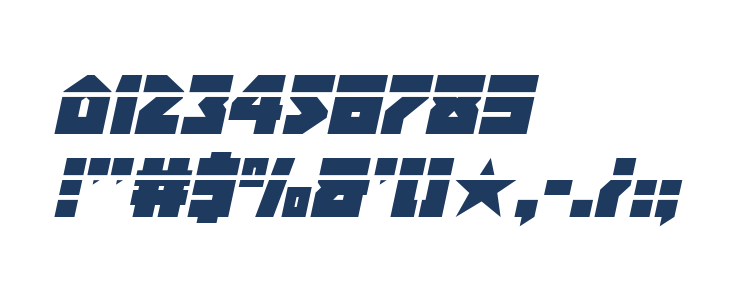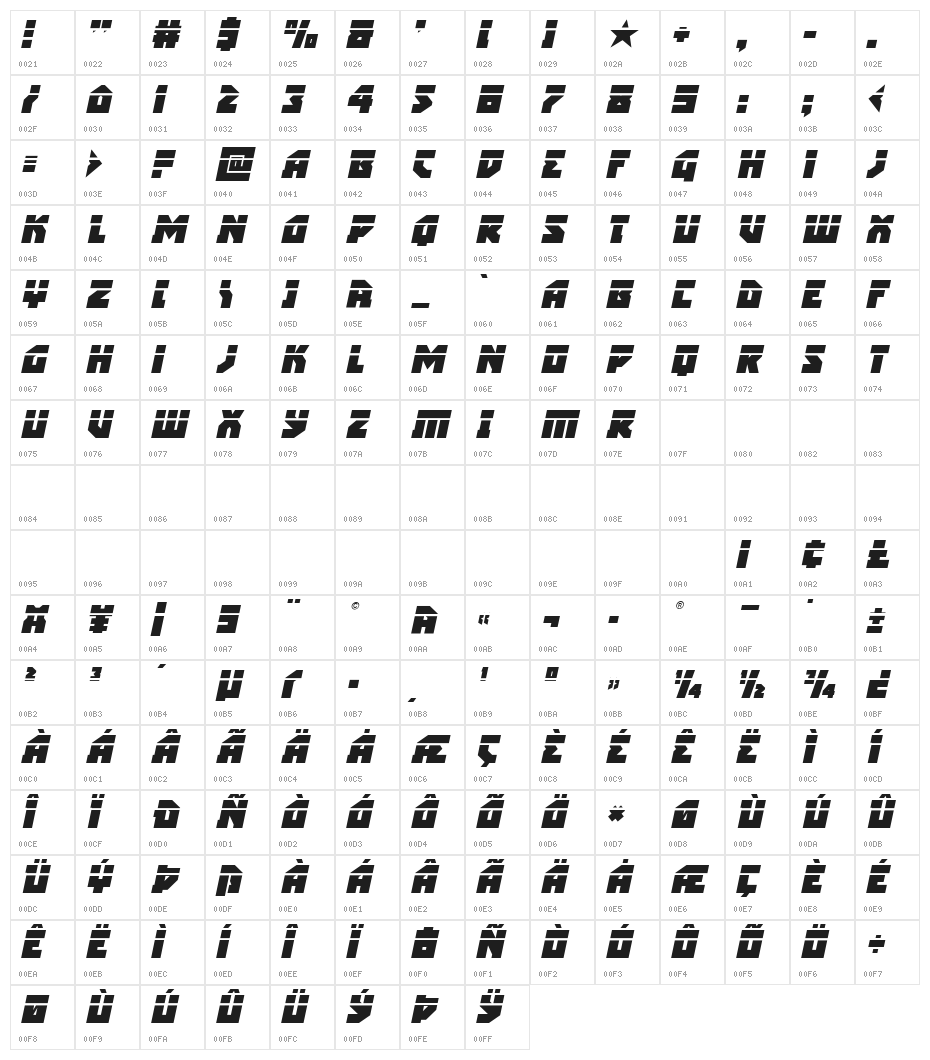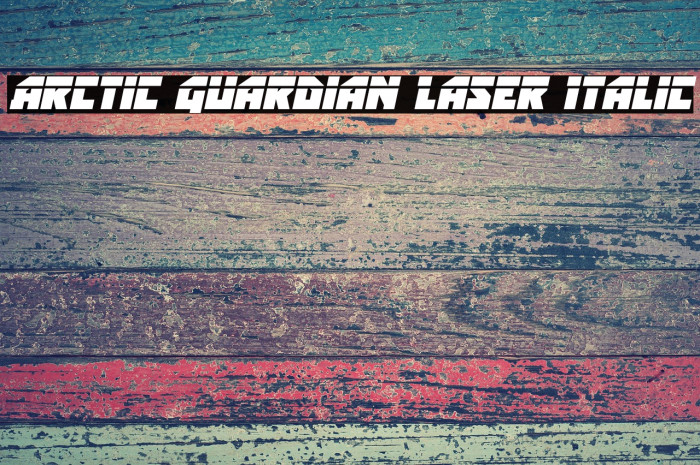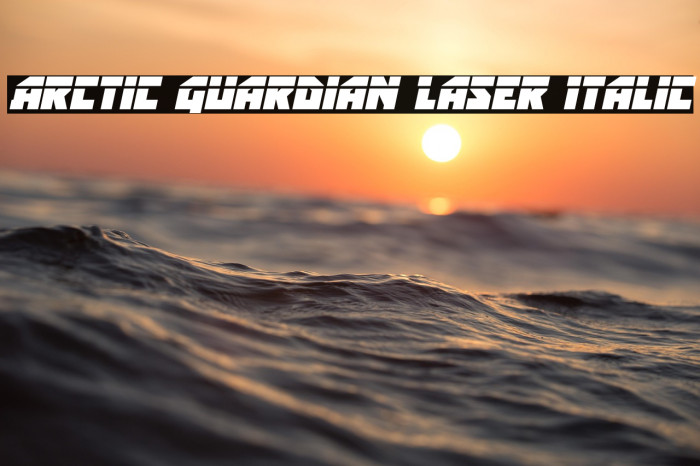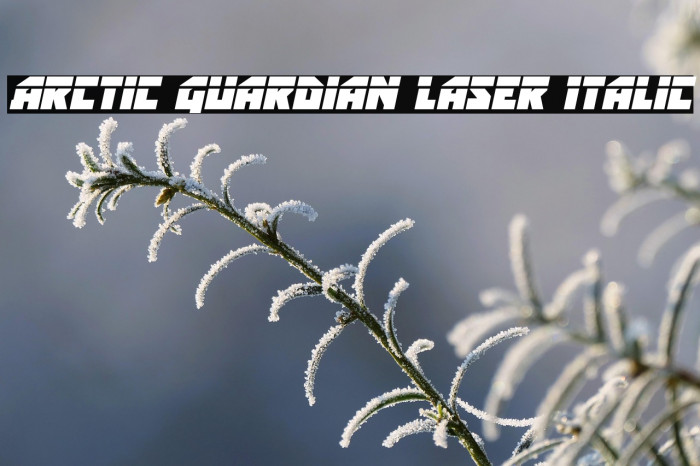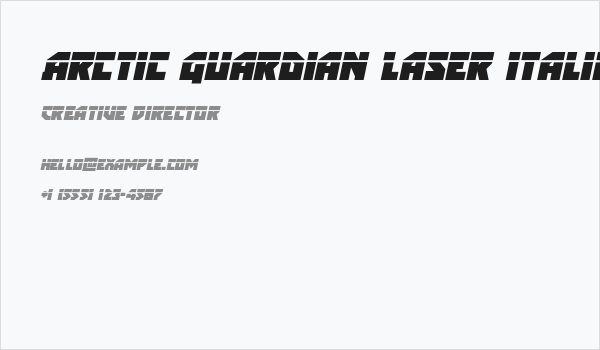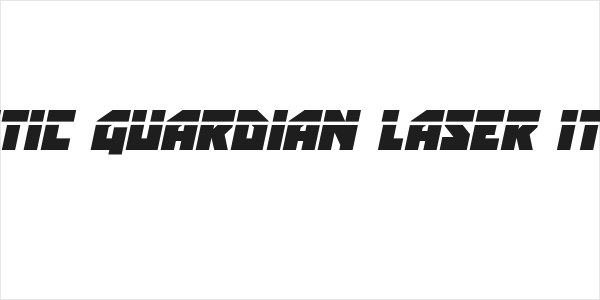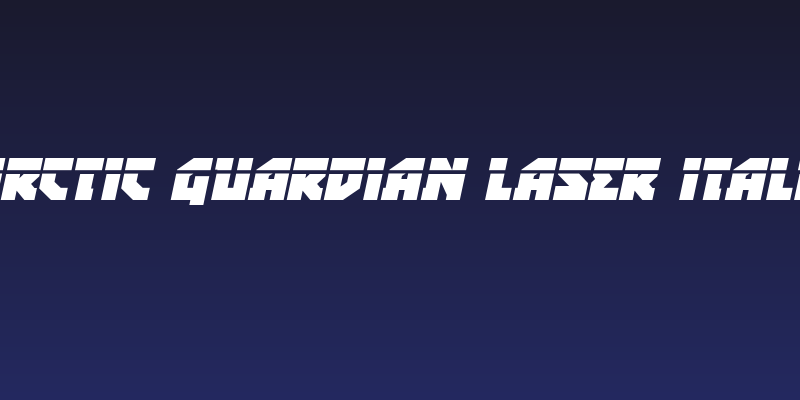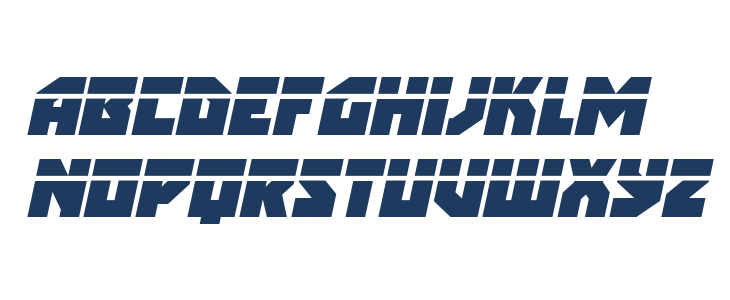
Arctic Guardian Laser Italic Font
Arctic Guardian Laser Italic Description
This font exhibits a bold and futuristic design, characterized by sharp angles and a geometric structure. The letters are distinctly angular, with a strong emphasis on diagonal lines, giving it a dynamic and edgy appearance. The uppercase and lowercase letters maintain a consistent style, with the lowercase mirroring the uppercase in form but slightly reduced in size. The numbers and special characters follow the same angular theme, ensuring uniformity across the character set. This font's unique style makes it stand out and is suitable for projects that require a modern and bold aesthetic.
| Proposed Projects | Ideal for sci-fi themed designs, video game titles, technology branding, and futuristic posters. |